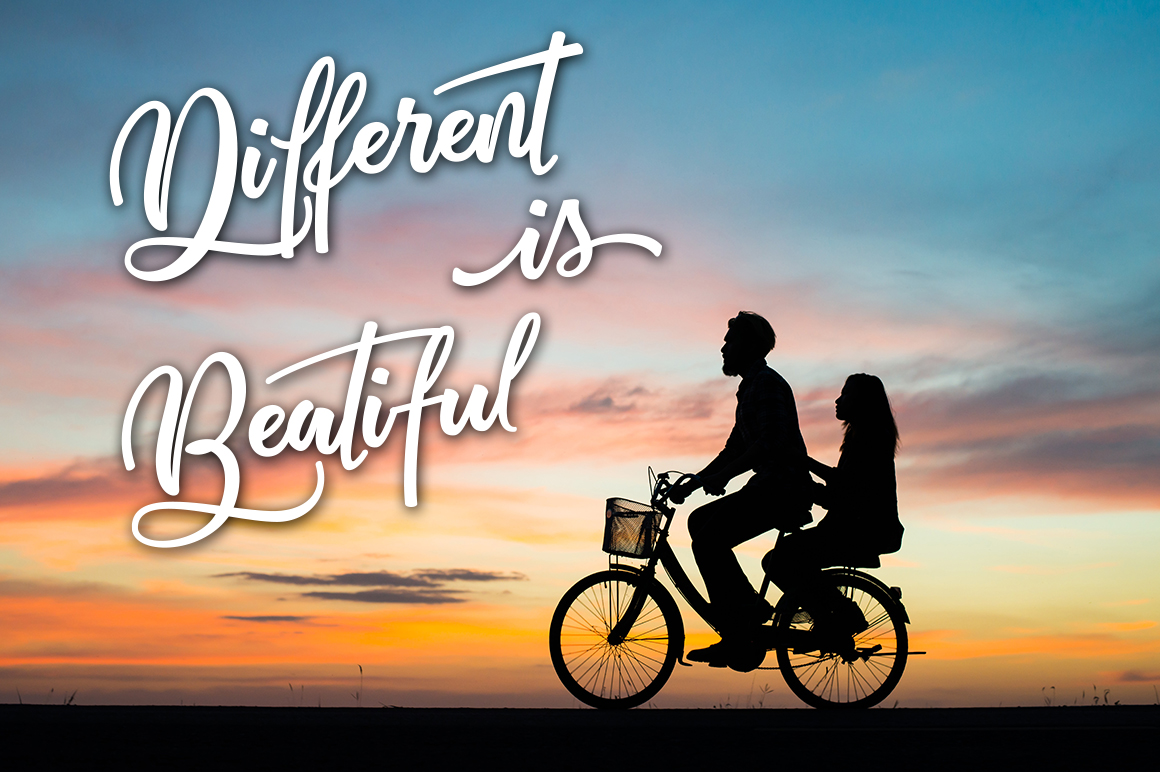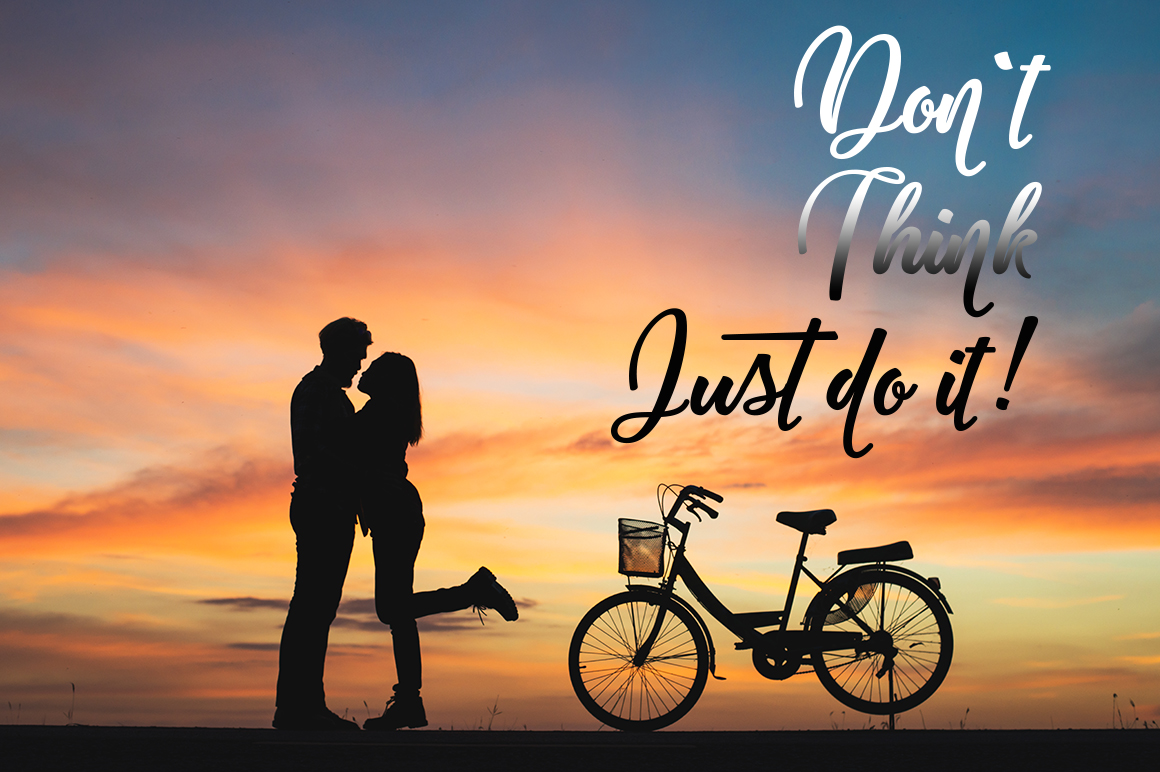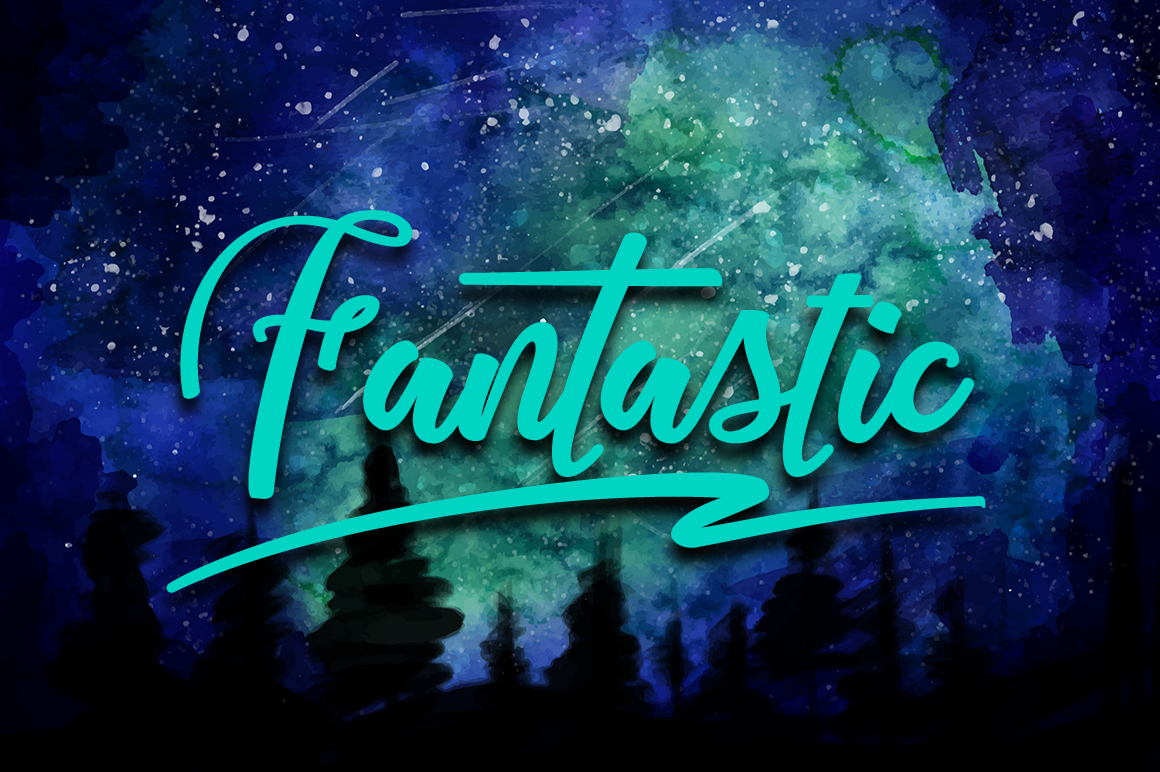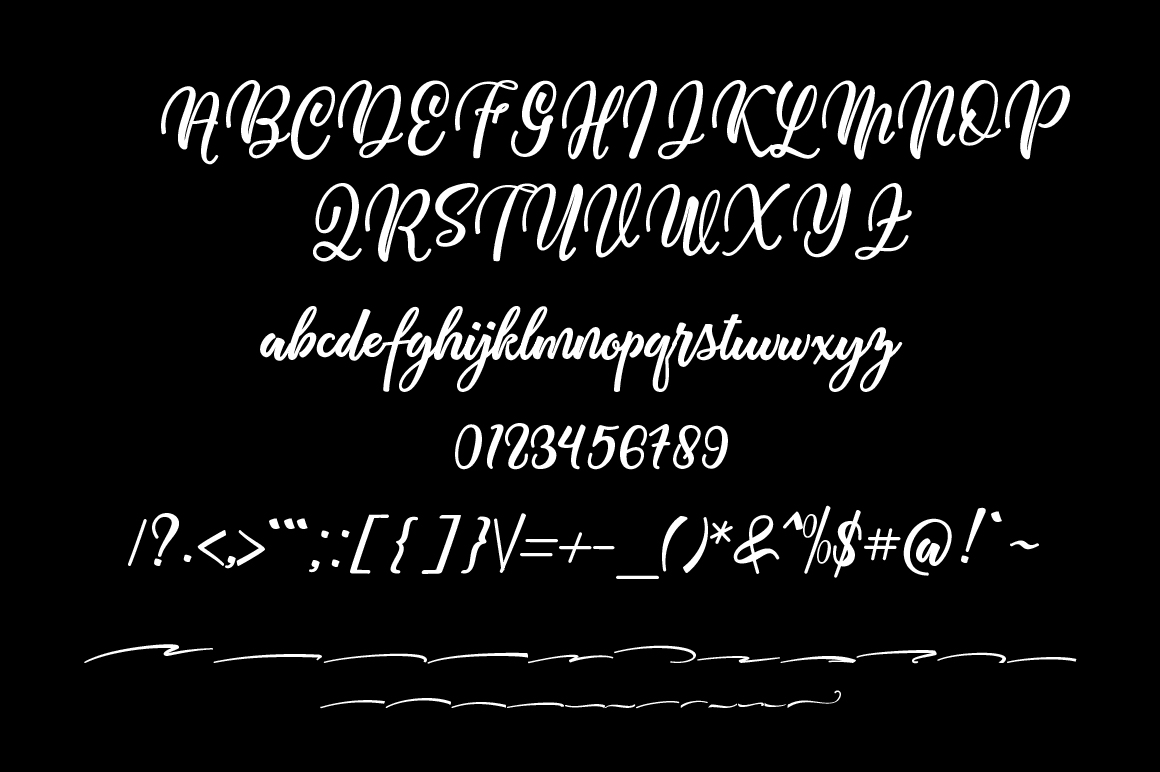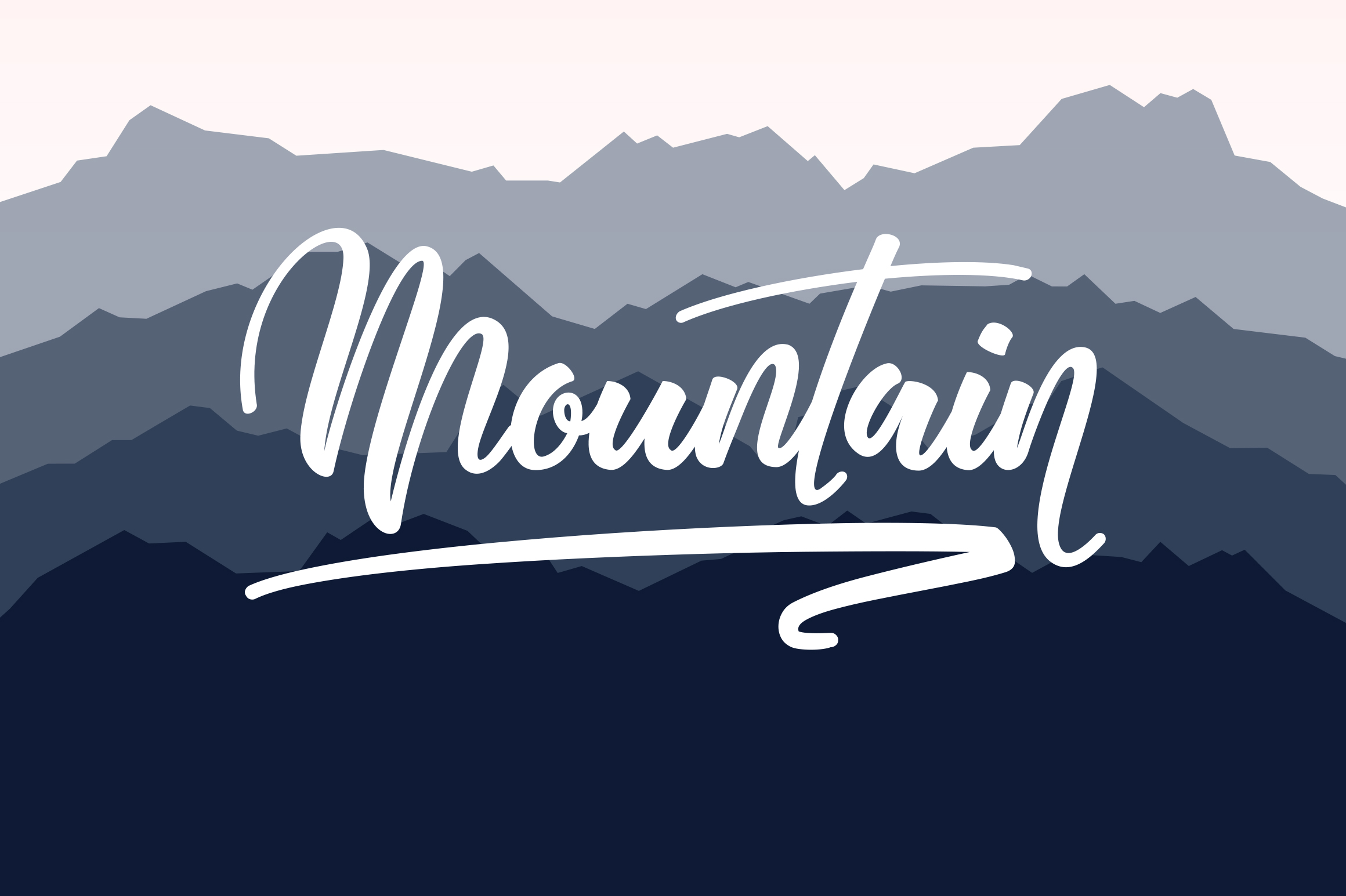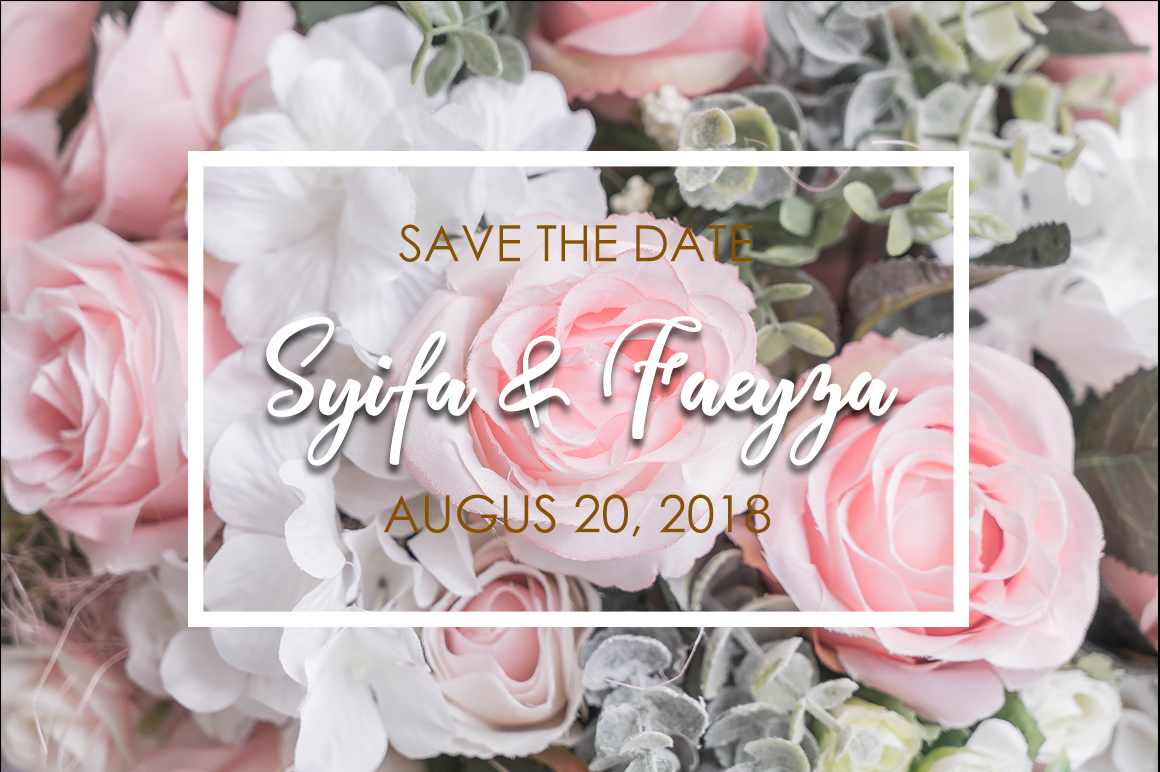
Bintang Font: Elevate Your Designs with a Touch of Modern Calligraphy
In the world of typography, few fonts manage to capture the essence of modern calligraphy as beautifully as Bintang Font. This stunning brush-style script is a masterpiece of digital design, offering a unique blend of elegance and creativity that can elevate any project. Whether you’re a professional designer, a crafty DIY enthusiast, or simply someone with a passion for beautiful typography, Bintang Font is sure to inspire.
The Inspiration Behind Bintang
Bintang’s unique looks are inspired by modern calligraphy, a style that combines traditional calligraphic techniques with a contemporary twist. The result is a font that exudes sophistication and style, perfect for projects that require a touch of luxury and refinement. From wedding invitations and branding materials to digital content and artisanal crafts, Bintang Font can add a level of elegance and sophistication that sets your work apart.
Key Features of Bintang Font
So, what makes Bintang Font so special? Here are just a few of its key features:
- Brush-style script: Bintang Font features a beautiful, hand-brushed script that gives it a unique, organic feel.
- Modern calligraphy inspiration: The font’s modern calligraphy inspiration gives it a fresh, contemporary look that’s perfect for designers and crafters who want to stay on-trend.
- Elegant and sophisticated: Bintang Font is characterized by its elegant, sophisticated lines and curves, making it perfect for projects that require a touch of luxury and refinement.
- Highly versatile: Whether you’re designing a wedding invitation, a logo, or a digital graphic, Bintang Font can be used in a wide range of projects and applications.
Using Bintang Font in Your Designs
One of the best things about Bintang Font is its versatility. Here are just a few ideas for using this beautiful font in your designs:
- Wedding invitations and stationery: Bintang Font is perfect for creating beautiful, elegant wedding invitations, save-the-date cards, and other stationery.
- Branding and packaging: The font’s modern calligraphy inspiration makes it a great choice for branding and packaging projects that require a touch of sophistication and style.
- Digital content: Bintang Font can add a level of elegance and refinement to digital content such as blog posts, social media graphics, and email newsletters.
- Crafts and DIY projects: Whether you’re making handmade cards, gift tags, or other craft projects, Bintang Font can add a touch of beauty and sophistication.
Tips for Getting the Most Out of Bintang Font
Here are a few tips for getting the most out of Bintang Font:
- Experiment with different colors and textures: Bintang Font looks great in a wide range of colors and textures, so don’t be afraid to experiment and find the combination that works best for your project.
- Pair it with complementary fonts: Bintang Font can be paired with a wide range of complementary fonts to create a unique and visually appealing typographic combination.
- Use it to add a personal touch: Bintang Font is perfect for adding a personal touch to your designs, whether you’re creating a handmade craft or a professional branding project.
Bintang Font is a stunning brush-style script that’s perfect for designers and crafters who want to add a touch of modern calligraphy to their projects. With its elegant, sophisticated lines and curves, this font is sure to inspire and elevate your designs. Whether you’re working on a wedding invitation, a branding project, or a DIY craft, Bintang Font is a versatile and beautiful choice that’s sure to impress.